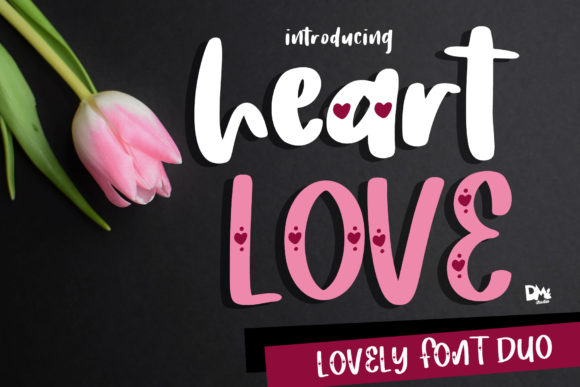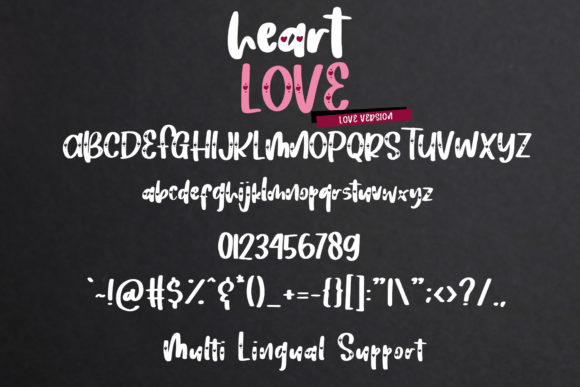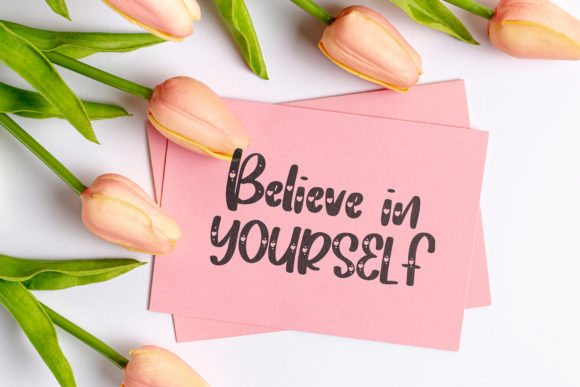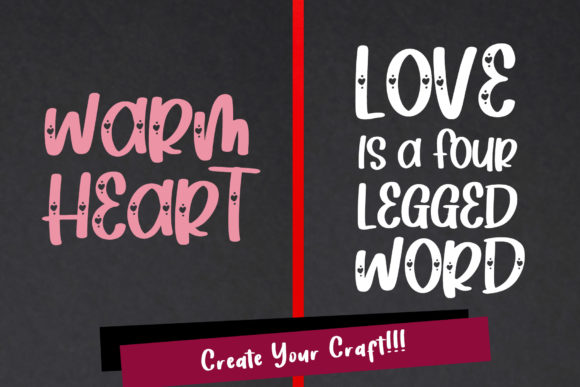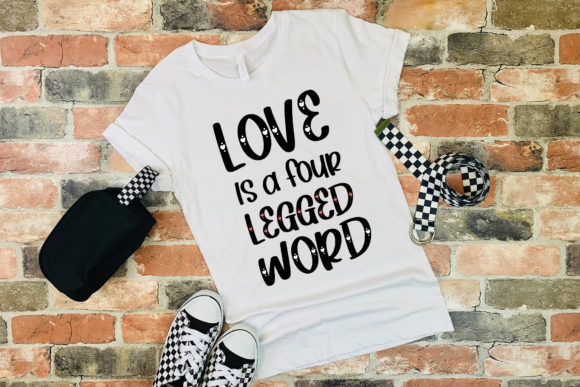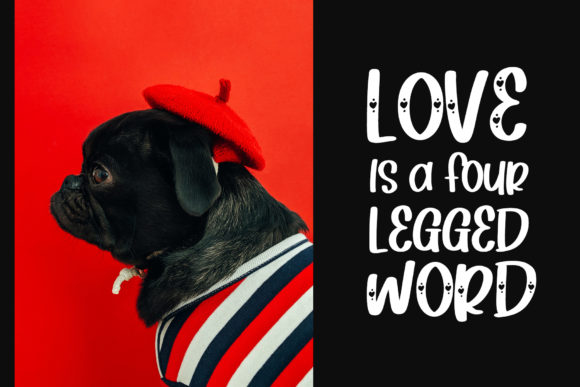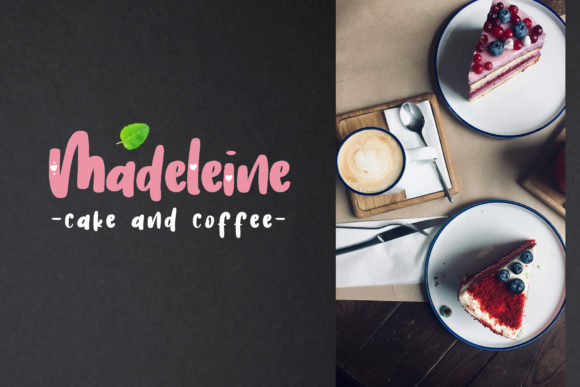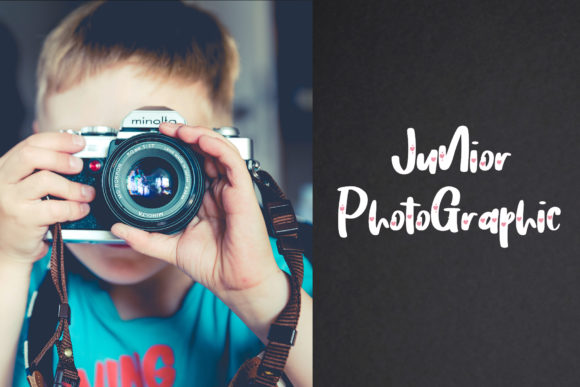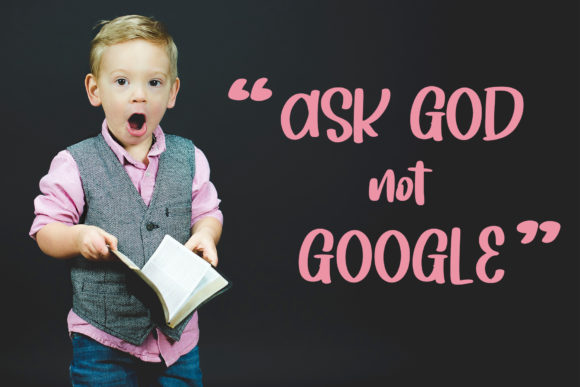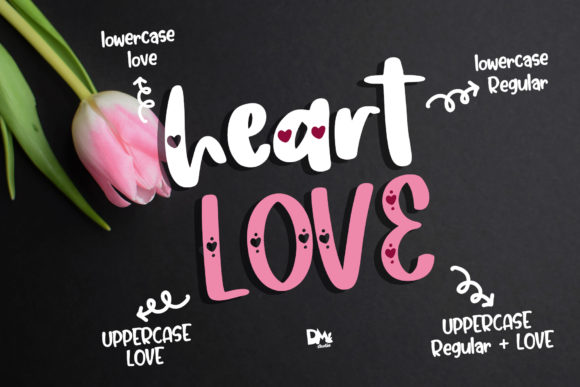
Heart Love Font
About Heart Love Font
Insufed with gorgeous hearts, Heart Love is a cute, romantic yet versatile font for a wide range of applications. Fall in love with its heartfelt charm!